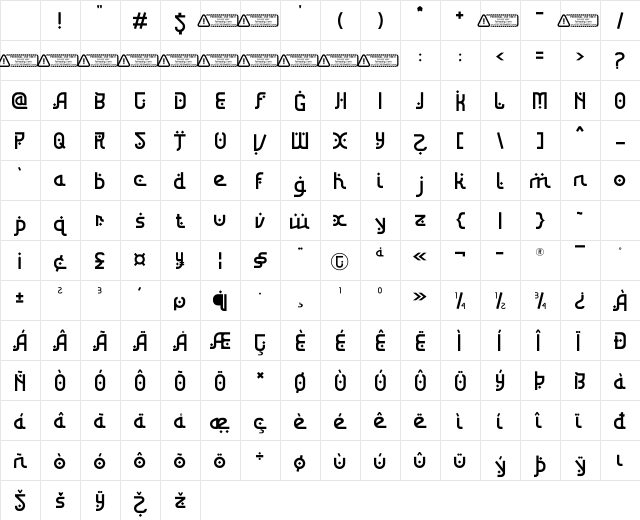
Zamro PERSONAL USE ONLY! is a composed and adaptable typeface that performs quietly and consistently across a wide range of design contexts.
Pro Tip: Use Zamro PERSONAL USE ONLY! in both headline and body roles to test its range before committing to a single application.